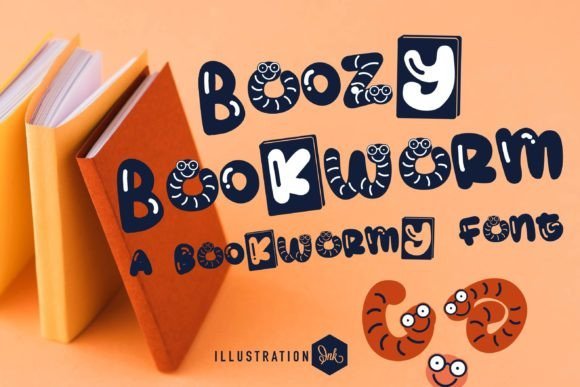
Introduction to Boozy Bookworm Font
Boozy Bookworm is a fun and adorable handwritten font that features cute little bookworms and books throughout.
Add it to your most creative ideas and you will be amazed by the outcome generated .
Why Choose Boozy Bookworm Font?
Boozy Bookworm Font offers exceptional quality and versatility, making it a valuable addition to your design toolkit. Whether you’re creating for personal projects or commercial use, Boozy Bookworm Font delivers professional results.